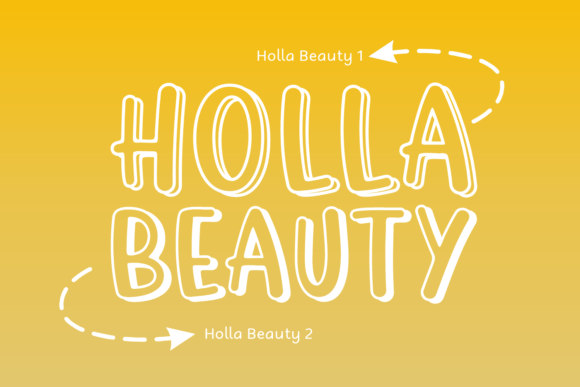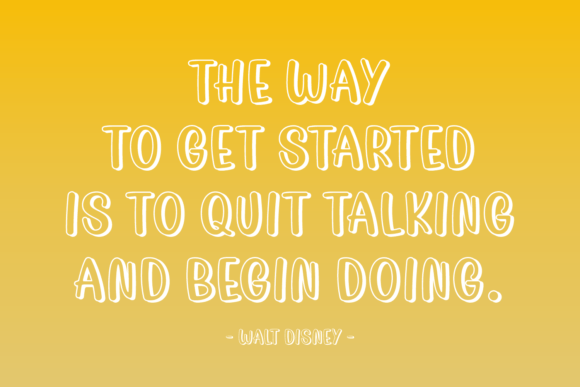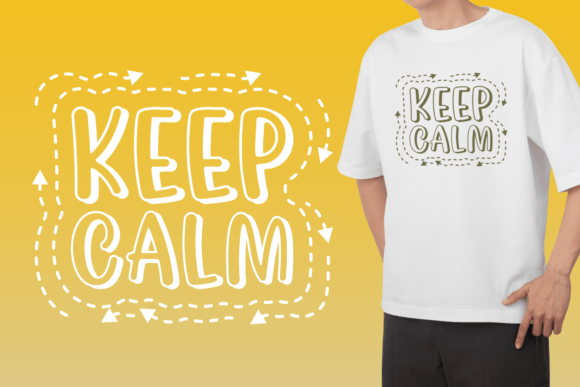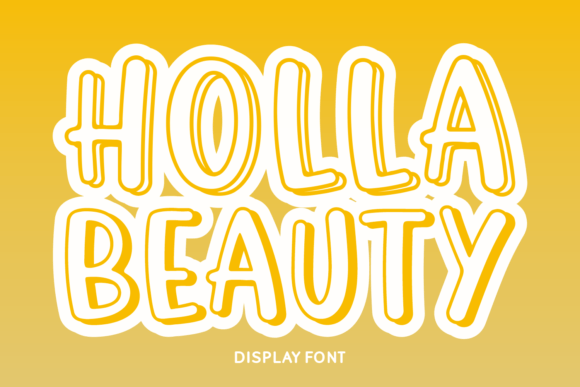
Introduction to Holla Beauty Font
Holla Beauty is a playful and elegant display font that effortlessly blends sophistication with a touch of whimsy.
Its graceful curves and stylish letterforms make it perfect for adding a dash of charm to invitations, headlines, and creative projects With a distinct personality, Holla Beauty captures attention and adds a touch of glamour to any design.